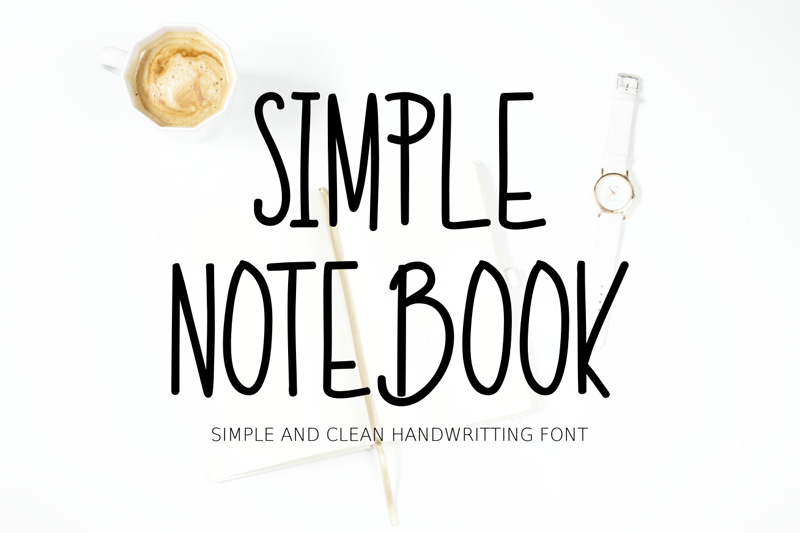
Free download Simple Notebook Font
Preview and download Simple Notebook Font. Created by Goodrichees in Script Handwritten styles with Free for personal use license.
Font name: | Simple Notebook |
Author: | Goodrichees |
Note by Goodrichees | |
DETAILS special creative products for you, our products will give you an extraordinary experience. the latest style letters are perfect for wall displays, wedding invitations, social media post logos, advertisements, product packaging, product designs, labels, photography, watermarks, invitations, stationery, and any project that requires taste handwriting. Links for license and contact: ================================================== ========= https://www.creativefabrica.com/product/simple-notebook/ref/399088/ gmail : goodrichees@gmail.com ================================================== ========= ATTENTION: WARNING!!! By installing or using this font, you agree to the Product Use Agreement: - This font has a FULL VERSION and is ONLY for PERSONAL USE. NO COMMERCIAL USE! - If you need CUSTOM PERMIT or COMPANY PERMIT please go to : (goodrichees@gmail.com) - Any donations are greatly appreciated. Paypal account for donations: More... |